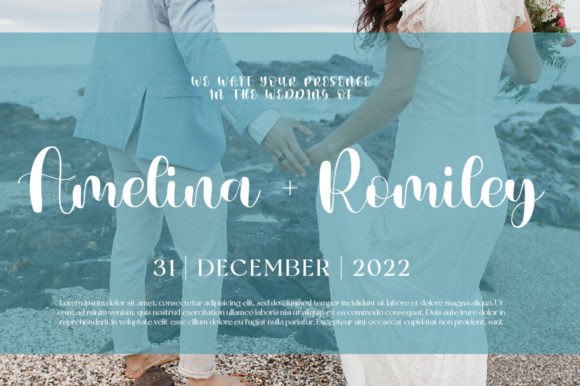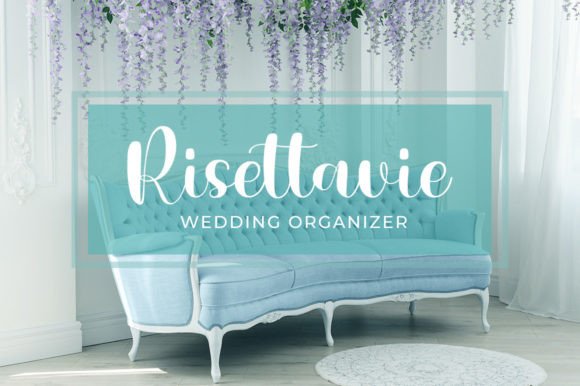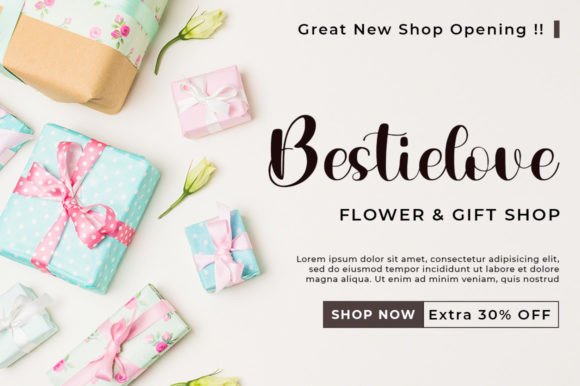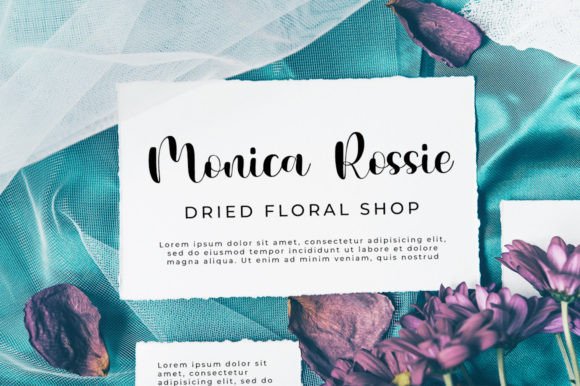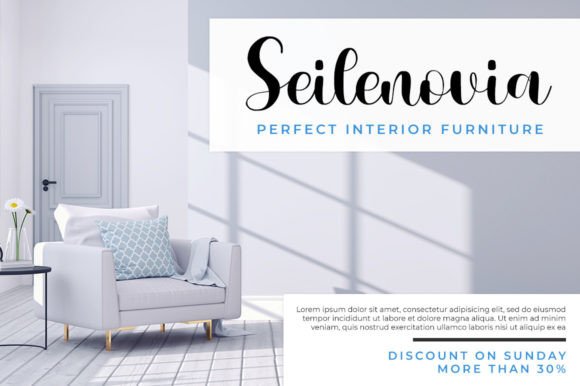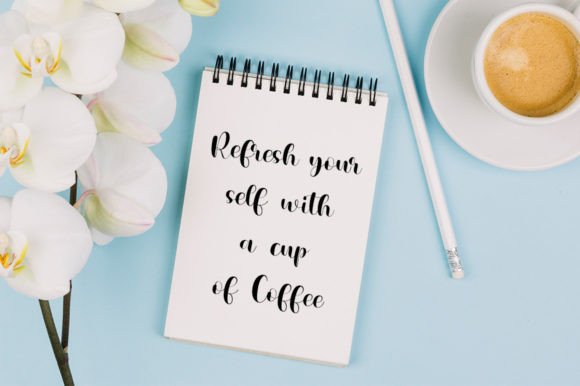
Introduction to Bluenovie Font
Bluenovie is a flowing handwritten font, described by an elegant touch, perfect for your favorite projects.
Key Features of Bluenovie Font
Why Choose Bluenovie Font?
Bluenovie Font offers exceptional quality and versatility, making it a valuable addition to your design toolkit. Whether you’re creating for personal projects or commercial use, Bluenovie Font delivers professional results.